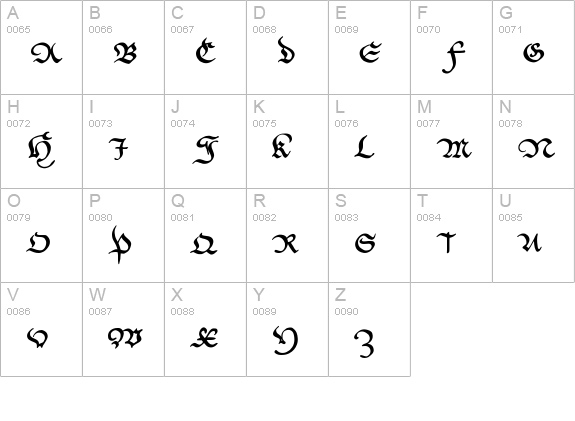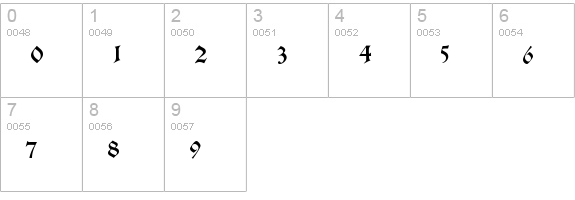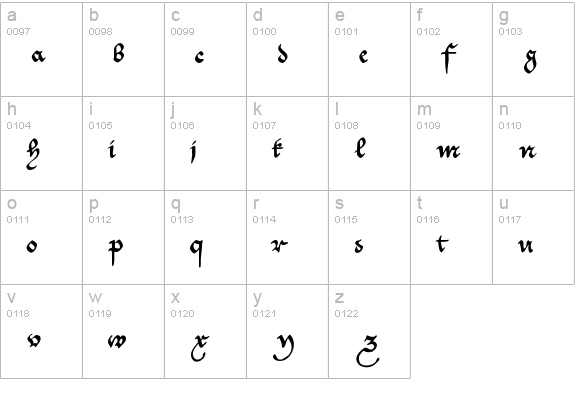
CantzleyAD1600 Font Details
CantzleyAD1600 is a stunning and elegant serif font that exudes a timeless charm reminiscent of the classical typography of the 17th century. With its intricate detailing and refined serifs, this font brings a touch of sophistication to any project it graces. The graceful curves and sharp angles of CantzleyAD1600 create a harmonious balance between tradition and modernity, making it a versatile choice for a wide range of design applications. What sets CantzleyAD1600 apart is not only its aesthetic appeal but also its accessibility. This exquisite font is offered for free, allowing designers and creatives to effortlessly incorporate its beauty into their work without any cost barriers. Whether you are working on a branding project, editorial design, or any other creative endeavor, CantzleyAD1600 is sure to elevate your designs with its refined style and timeless elegance. For those looking to enhance their typography collection with this exceptional font, CantzleyAD1600 is freely available to download at FontsMarket.com. Embrace the beauty and versatility of CantzleyAD1600 and bring a touch of classic sophistication to your designs today.